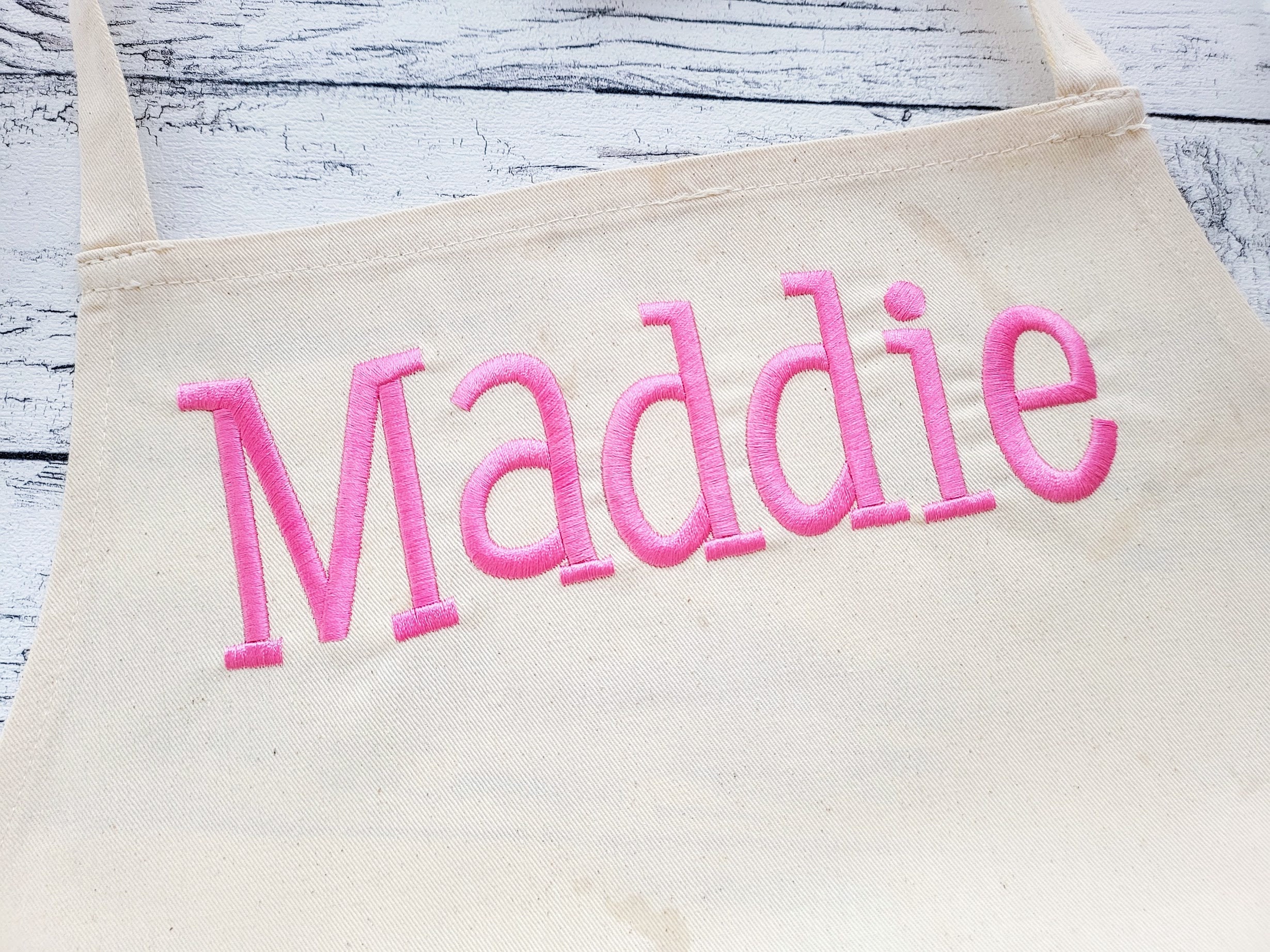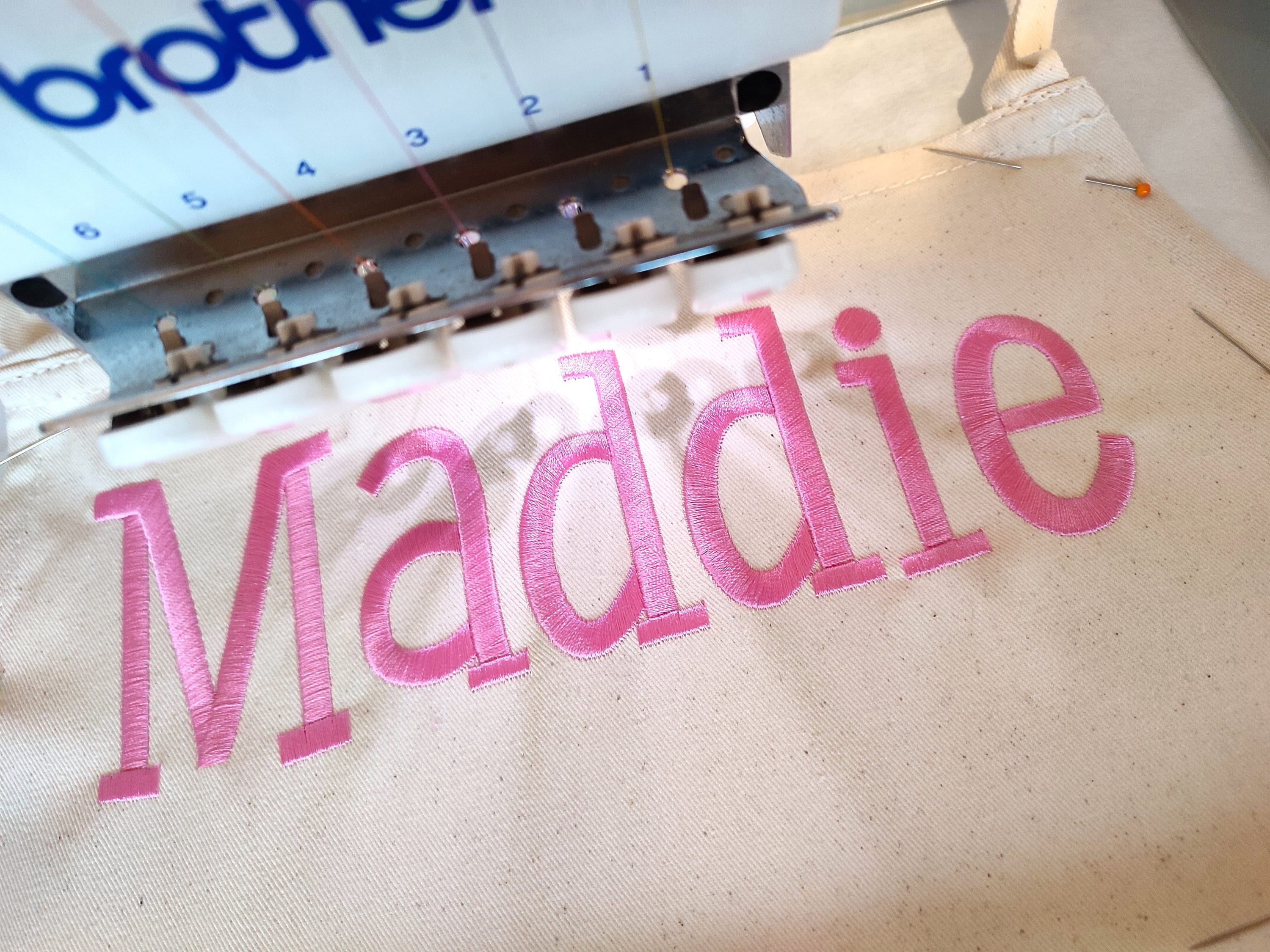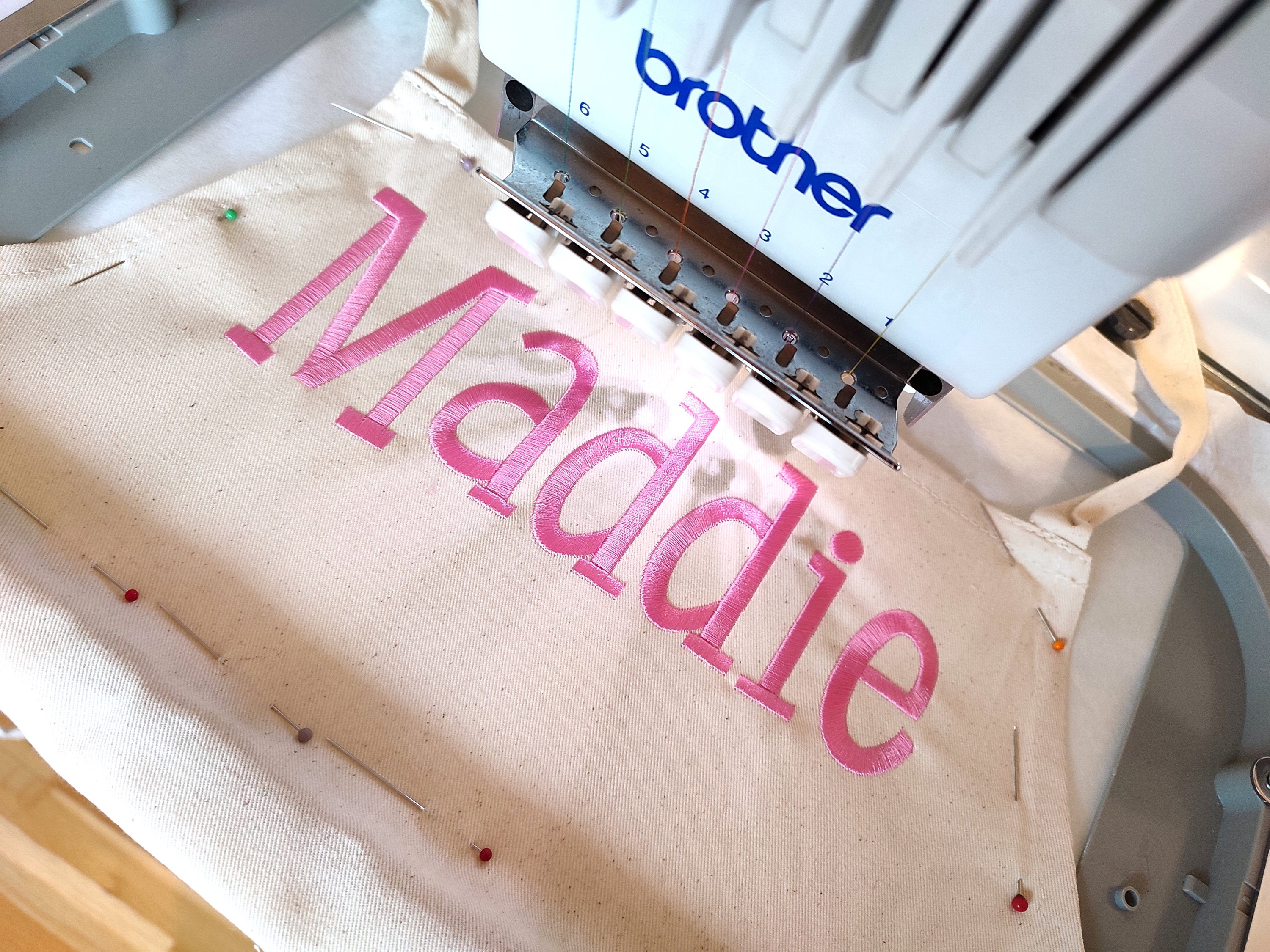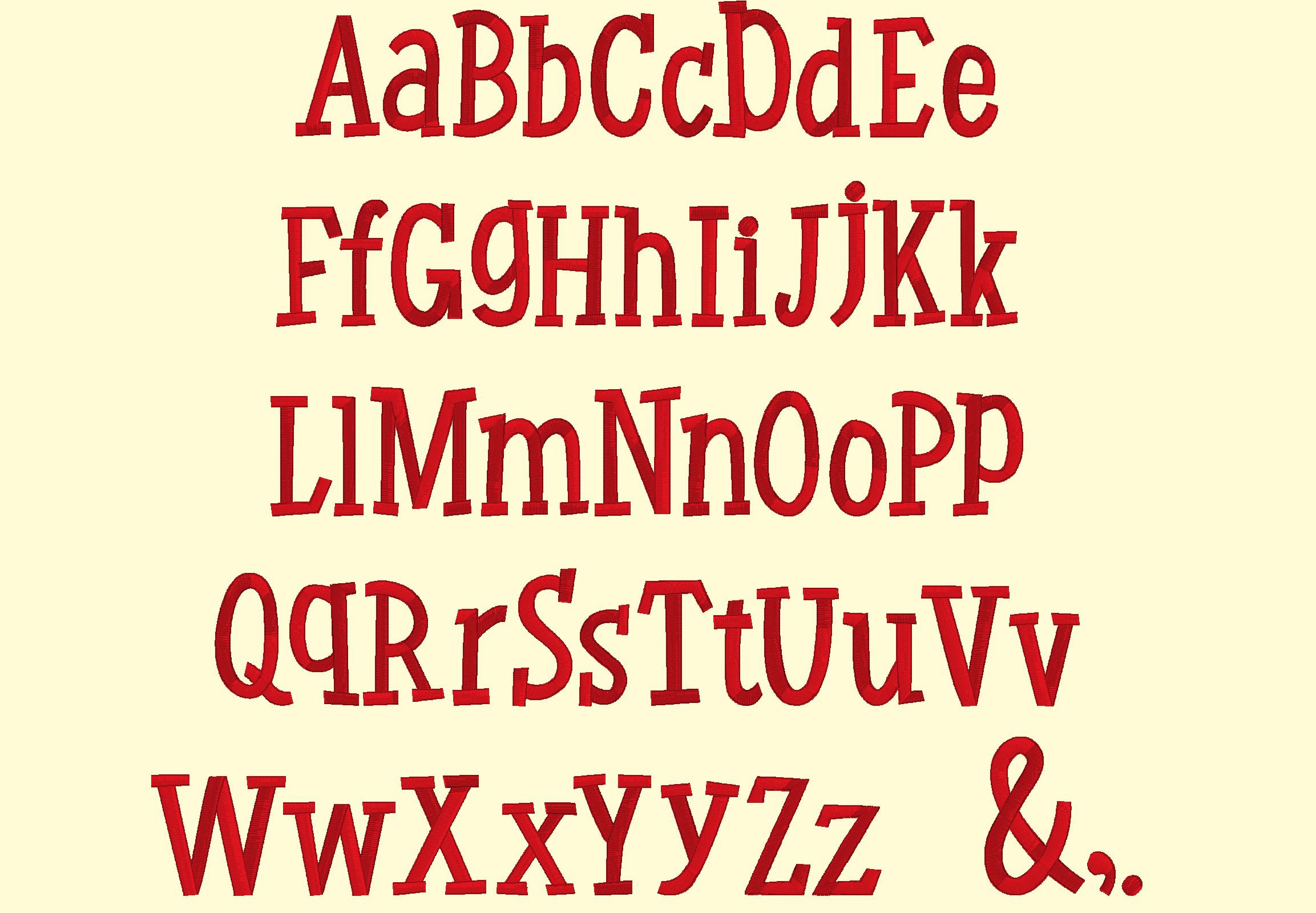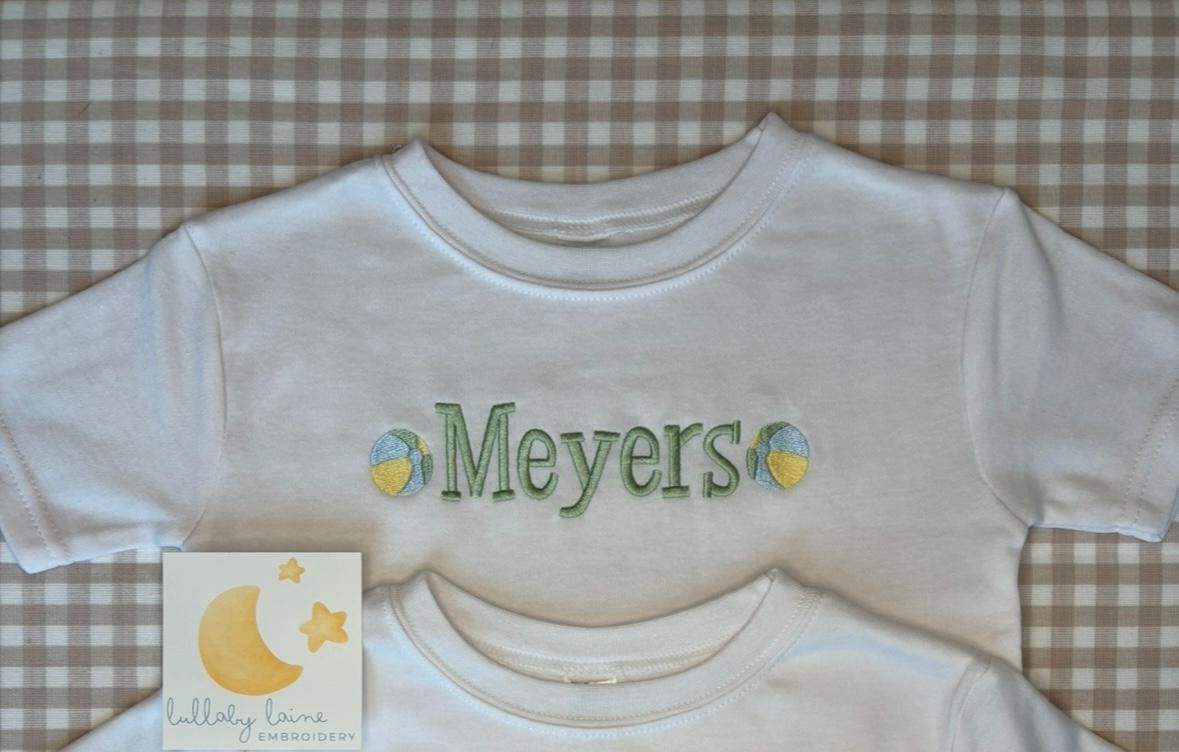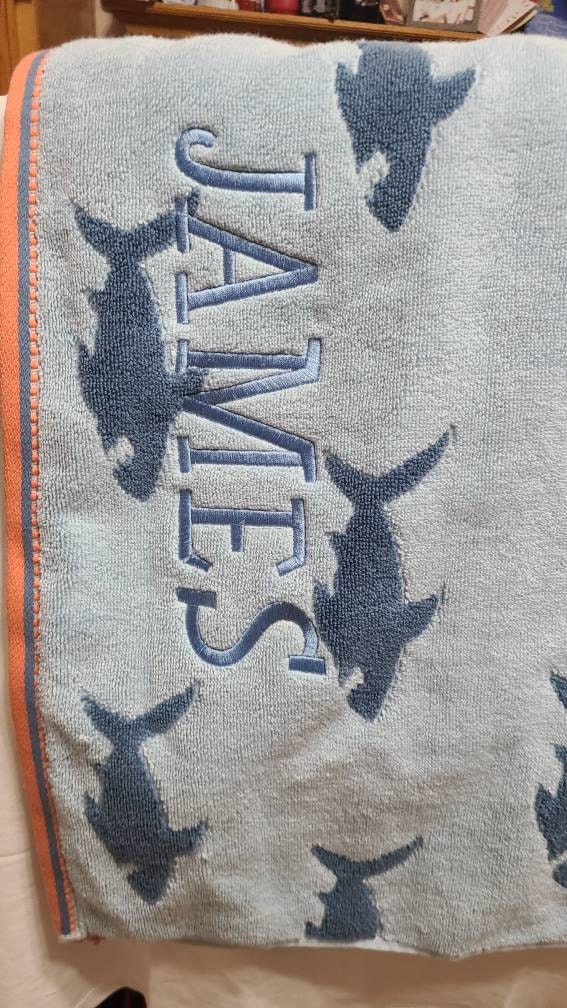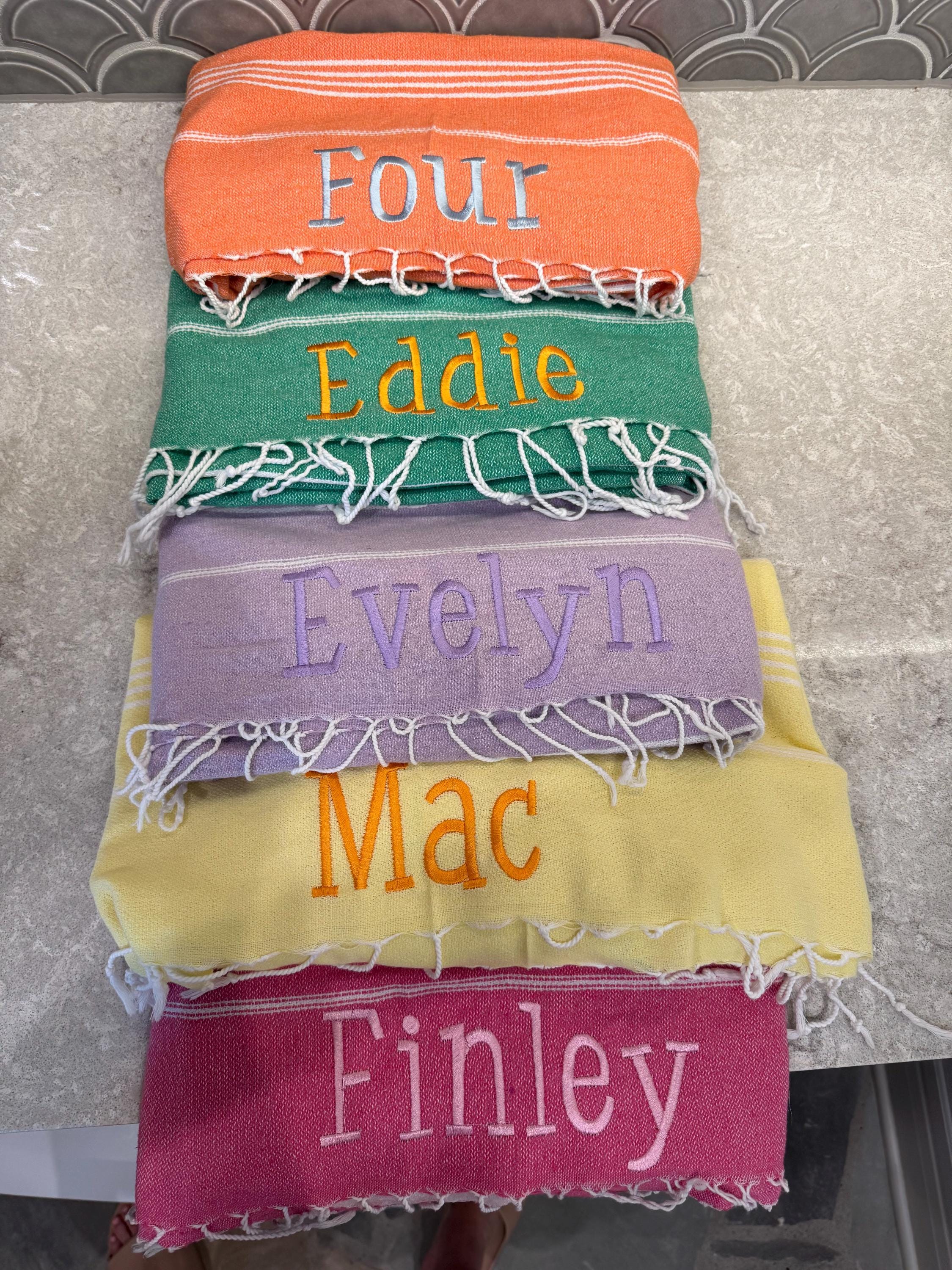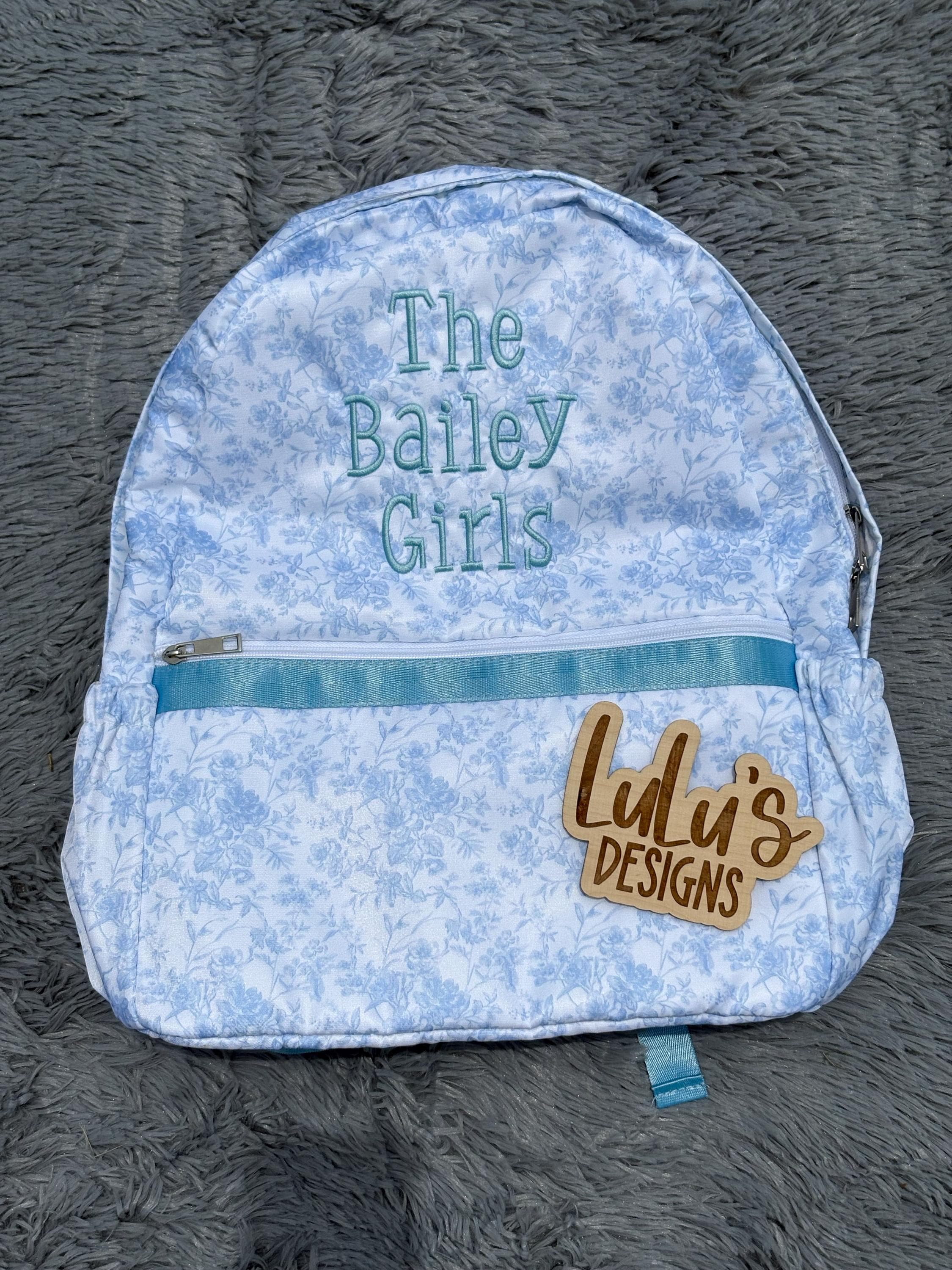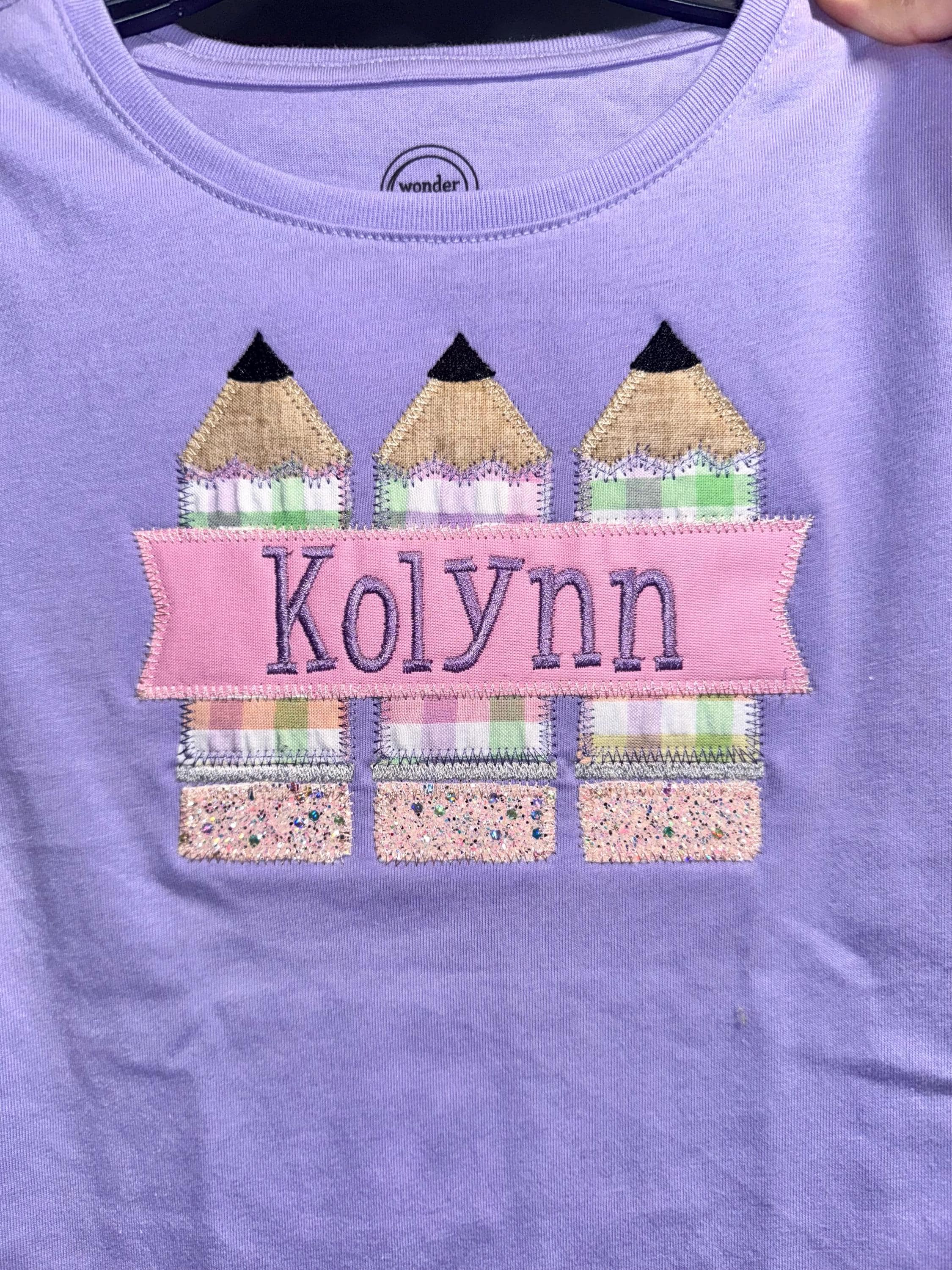
Beautiful satin stitch Cute Font playful kids alphabet letters monogram name machine embroidery designs assorted sizes, BX included
Whole alphabet uppercase and lowercase letters, and punctuation . , &